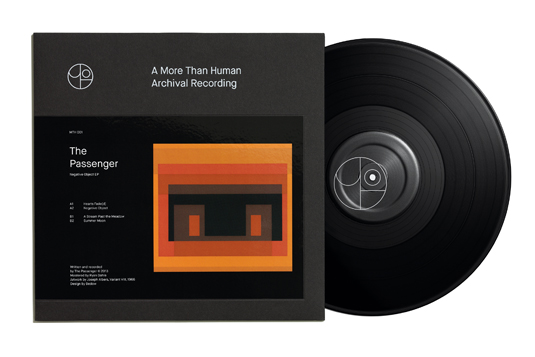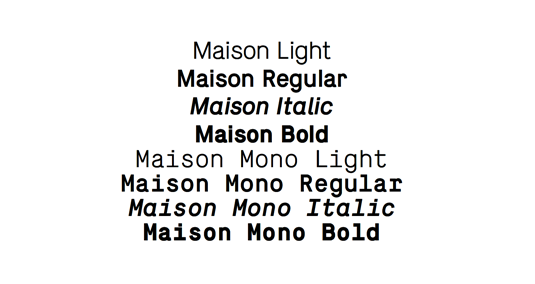
Greatest fonts countdown: 68 – Maison
68. Maison
- Timo Gaessner, 2010
Released by Berlin-Zurich-based foundry and publisher Milieu Grotesque in 2010, Maison is a monolined grotesque typeface based on a constructed principle to achieve an industrial flavour, with a minimum amount of details and optical corrections. The typeface was originally designed as a monospaced grotesk for the use in the
corporate design of Thomas Bendel Architects in Berlin.
The original Maison face contains eight styles, whereas a reworked version – Maison Neue – by Timo Gaessner released in 2012 contains 12 styles, with an extended Latin character set and a variety of OpenType features.